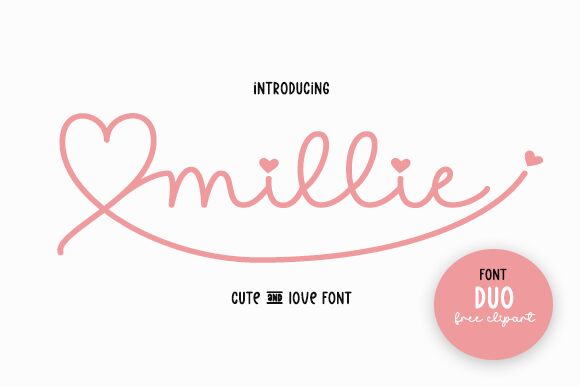
Millie, a light handwritten font designed by Nopianti, is perfect for adding a touch of personality to your projects. From greeting cards to posters, this cute and versatile font will add the perfect finishing touch.
Millie
Nopianti